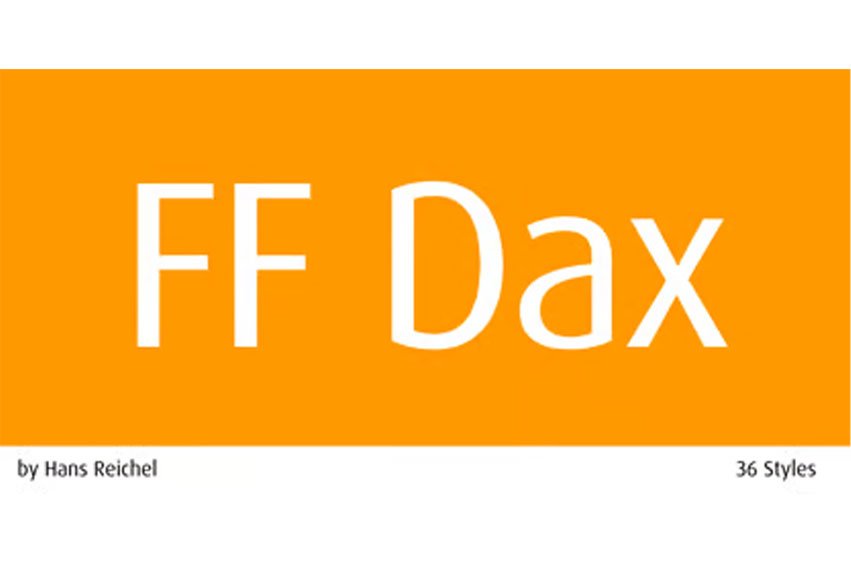
FF Dax Font German type designer Hans Reichel created this sans FontFont between 1995 and 2000. The family has 36 weights, ranging from Light to Black in Condensed, Normal, and Wide (including italics) and is ideally suited for advertising and packaging, book text, editorial and publishing, logo, branding and creative industries, poster and billboards, wayfinding and signage as well as web and screen design.
FF Dax provides advanced typographical support with features such as ligatures, small capitals, alternate characters, case-sensitive forms, fractions, and super- and subscript characters. It comes with a complete range of figure set options – oldstyle and lining figures, each in tabular and proportional widths. As well as Latin-based languages, the typeface family also supports the Cyrillic and Greek writing systems. In 1998, FF Dax received the The Big Crit award.